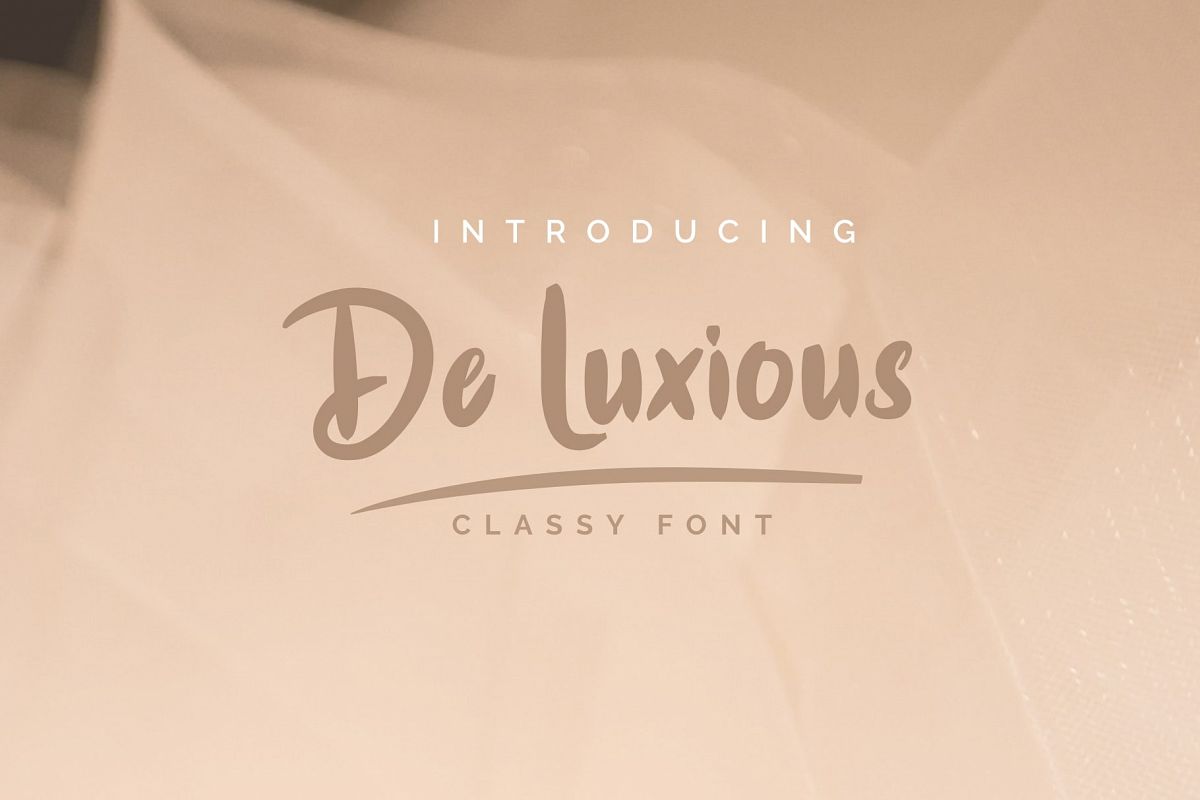
Give a touch your project to make it look classy and outstanding with De Luxious font. This font is perfect for logo, personal branding, branding identity, signature etc, make today awesome with De Luxious font.
- Full features from uppercase, lowercase, numeral, and punctuations
- Multilingual support for 15 languages (Afrikaans, Albanian, Catalan, Danish, Dutch, English, French, German, Icelandic, Italian, Norwegian, Portugese, Spanisch, Swedish, Zulu )